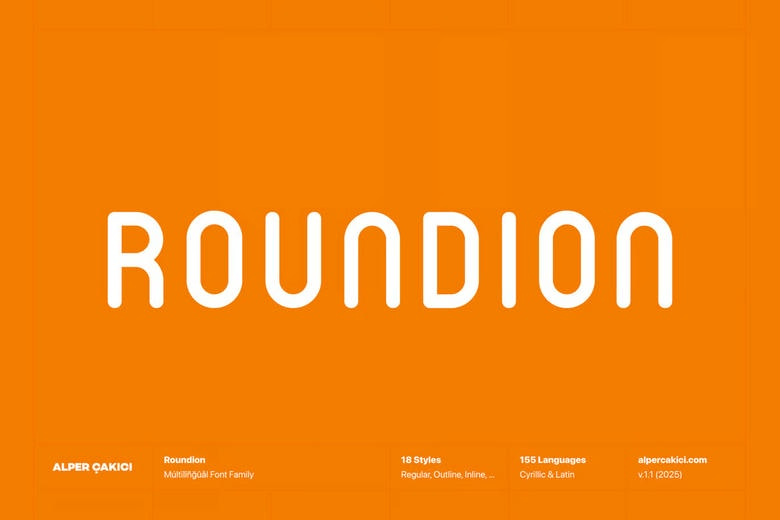
Roundion Font
Roundion Font is a rounded typeface known for its clear look and unique character. Its smooth shapes make it a good choice for branding, packaging, editorial projects, and displays. It also supports many languages.
The font family comes in 18 styles, such as Regular, Italic, Angular, Brush, Contour, Edge, Inline, Outline, Rimmed, and Stroke, each with a matching italic. With so many options, you can create friendly brands, bold headlines, or modern digital designs.
Roundion Rounded Sans Serif Font Family